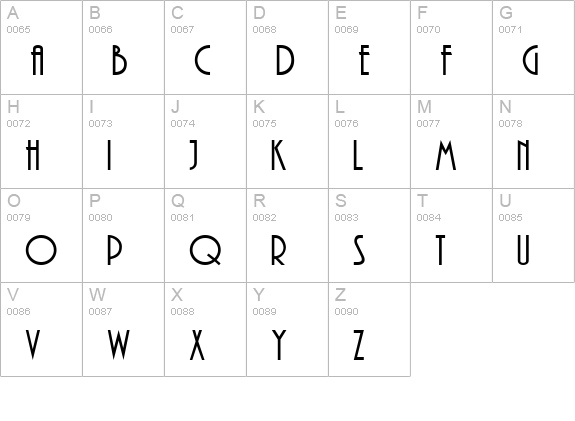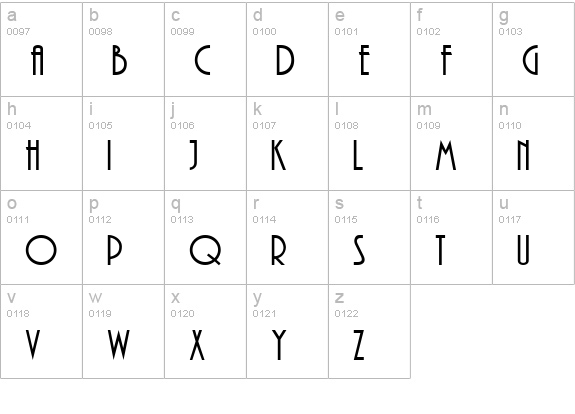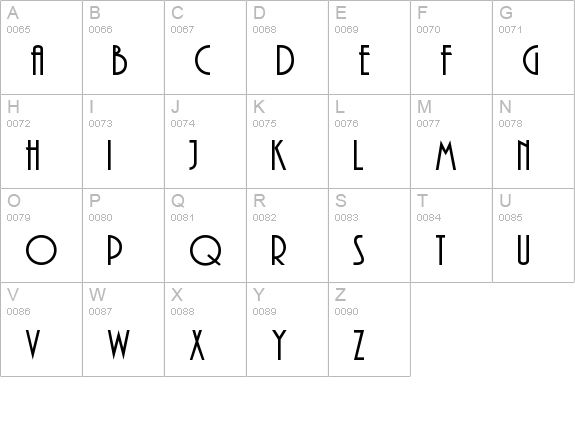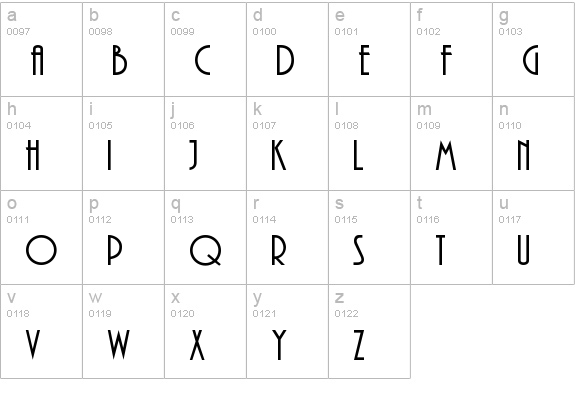
The Playwright font is a modern and elegant typeface that exudes sophistication and style. Its clean lines and classic design make it perfect for a wide range of projects, from branding to editorial design. With a timeless appeal and versatile nature, Playwright is sure to make a statement in any application. What makes Playwright even more appealing is that it is completely free to download at FontsMarket.com. This means that you can access this stunning font without any cost, making it a valuable addition to your font collection. Whether you're a designer, writer, or creative professional, Playwright offers a high-quality solution that will elevate your work to the next level. Don't miss out on the opportunity to enhance your projects with the Playwright font – download it for free today at FontsMarket.com and unlock its full potential.